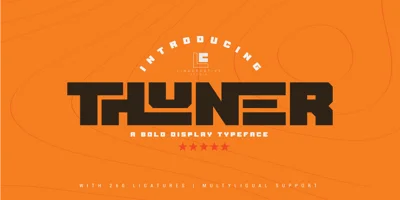
Thuner Font
Thuner Font is perfect for storm chasing documentaries, extreme weather branding, outdoor adventure gear, powerful automotive marketing, heavy metal band logos, action movie titles, energy drink packaging, sports equipment branding, dramatic advertising campaigns, and any projects that need thunderous typography with raw power and elemental force.
What makes Thuner Font exciting is its electrifying design that captures the raw power and primal energy of thunderstorms with letterforms that crackle with intensity and commanding presence. This powerful typeface features bold, angular characteristics with dynamic weight distribution that evokes lightning strikes, rumbling thunder, and the awesome force of nature unleashed. The font's elemental character makes it perfect for brands seeking to communicate strength, power, and the unstoppable energy that drives breakthrough performance and extraordinary achievements.
Thuner Font family includes storm-powered style variations featuring regular, bold, condensed, and lightning versions. The font family also contains weather-inspired decorative elements, lightning bolt symbols, storm cloud ornaments, and electrical dingbats that enhance the thunderous atmosphere. Additional options include electrified variants with enhanced energy effects, along with special character sets designed for different storm moods and high-impact applications.